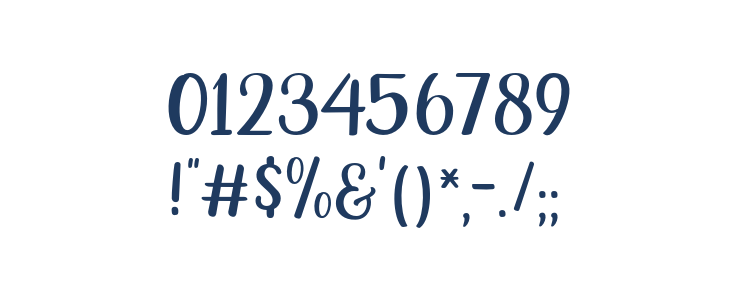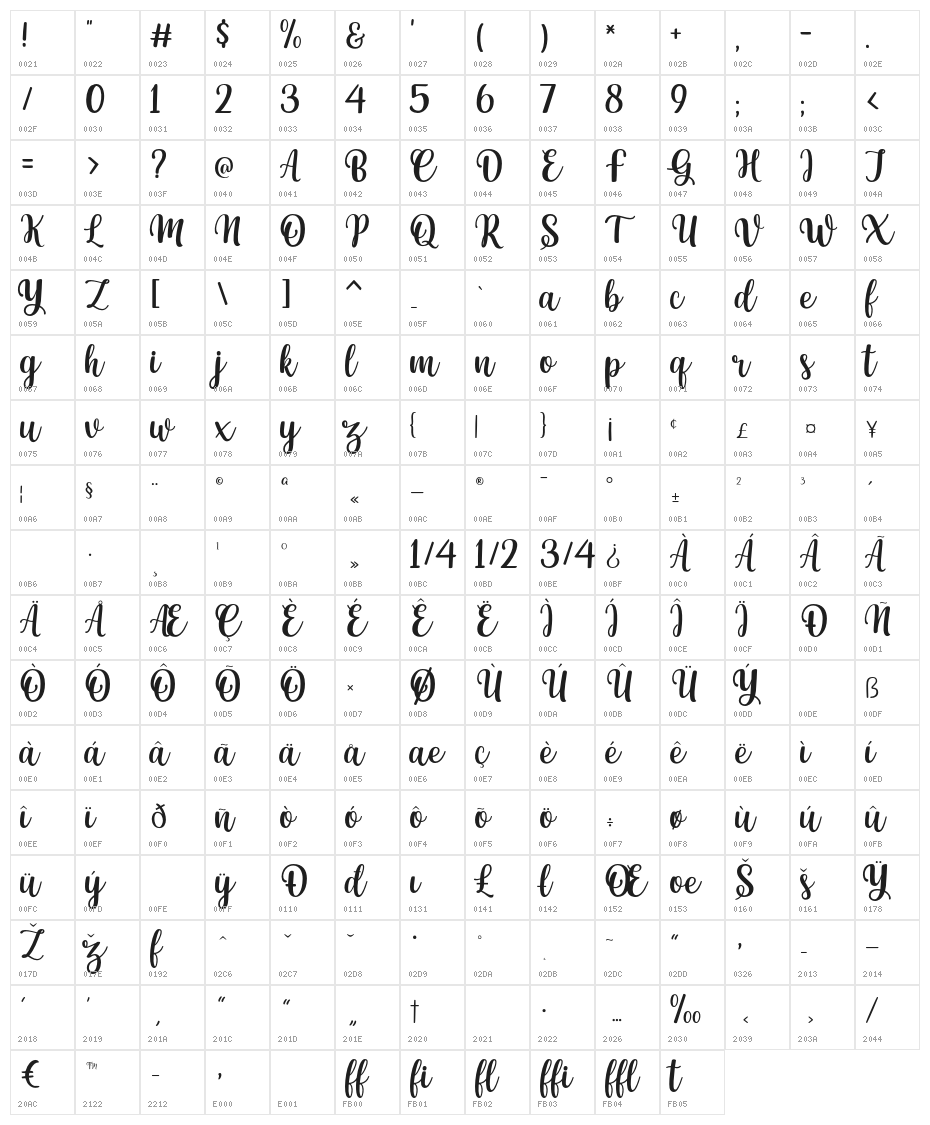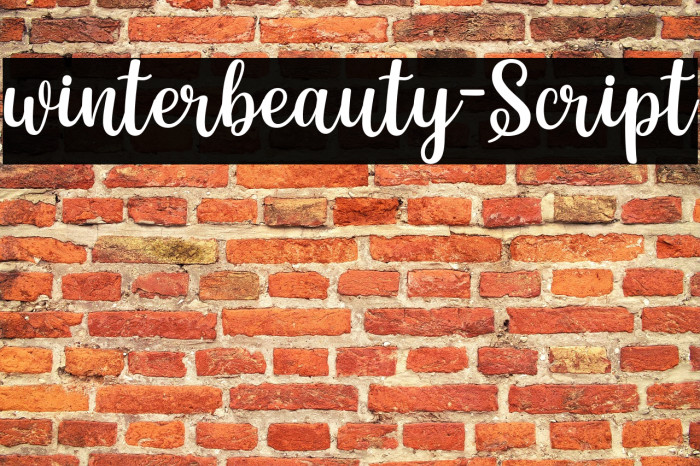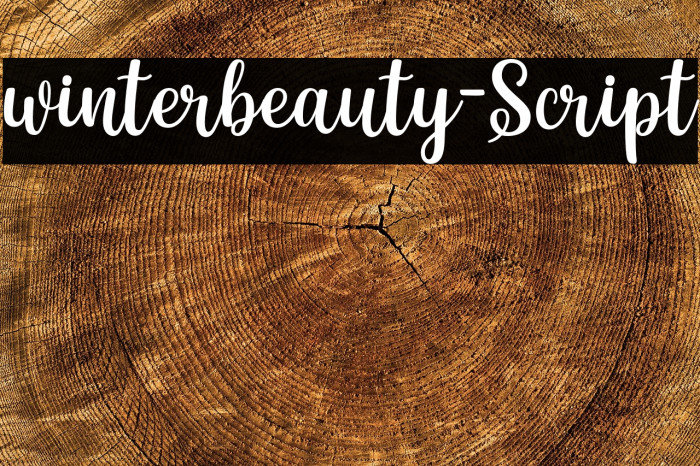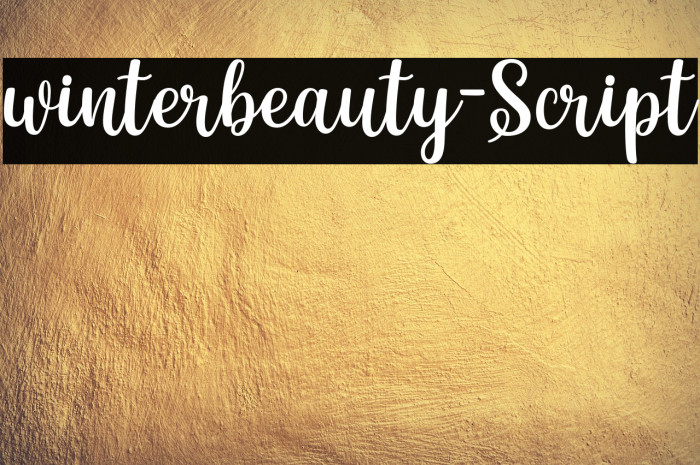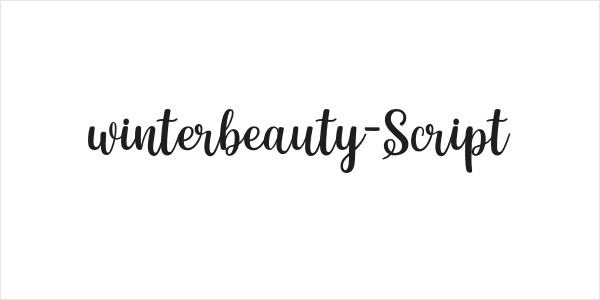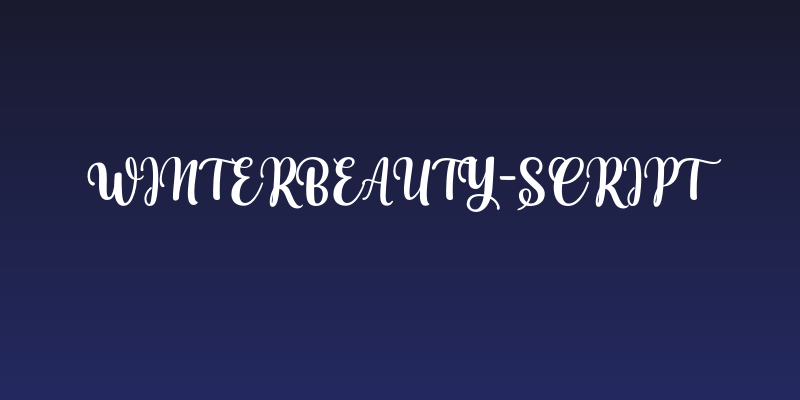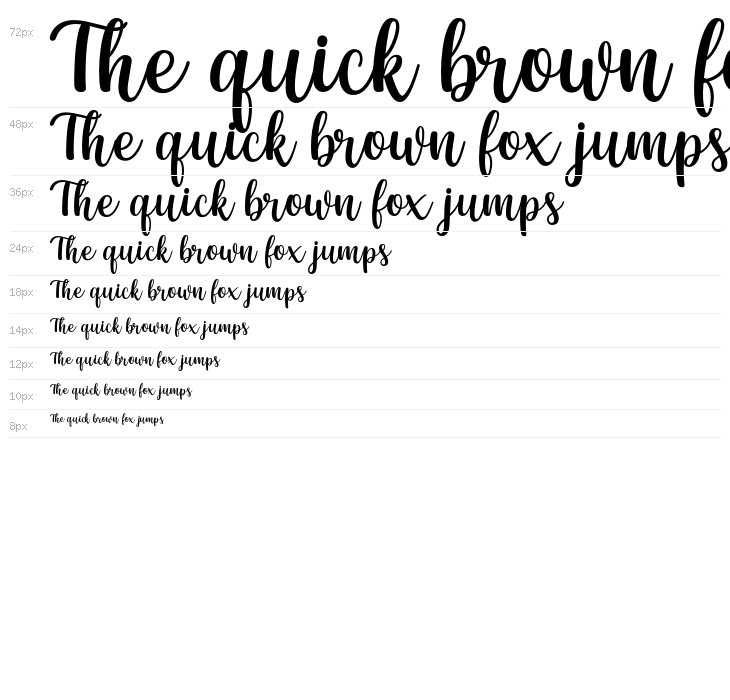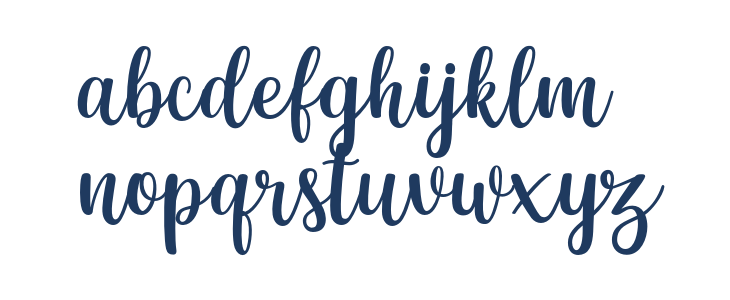
winterbeauty-Script Font
winterbeauty-Script Description
This script font exudes elegance and fluidity, characterized by its smooth, flowing lines and graceful curves. The uppercase letters are bold and dynamic, with a slight slant that adds a sense of motion and sophistication. The lowercase letters maintain a cohesive style, featuring loops and swirls that enhance its decorative appeal. The numerals are clear and consistent, matching the overall aesthetic of the font. Special characters are thoughtfully designed, ensuring versatility in various applications. This font's artistic flair makes it ideal for creative projects that require a touch of elegance and personality.